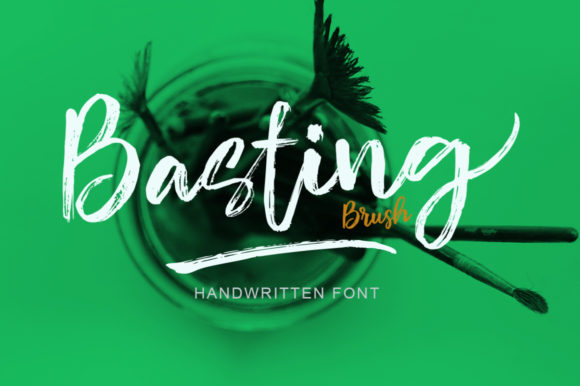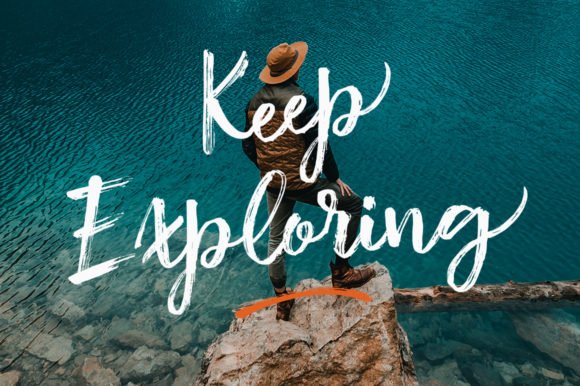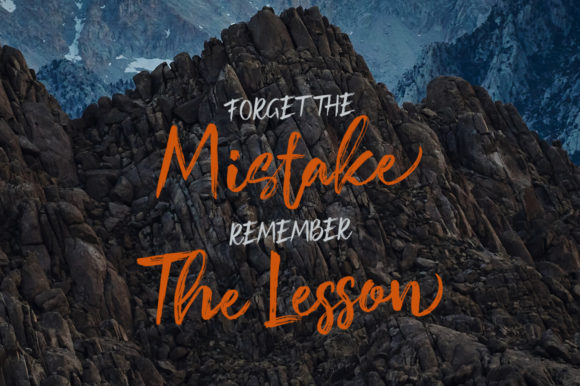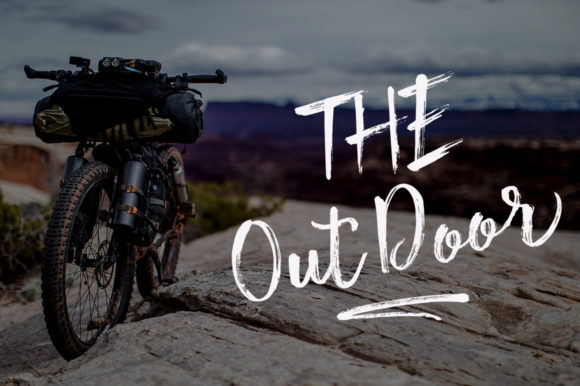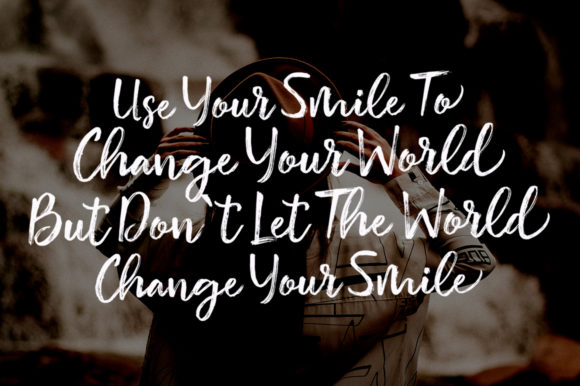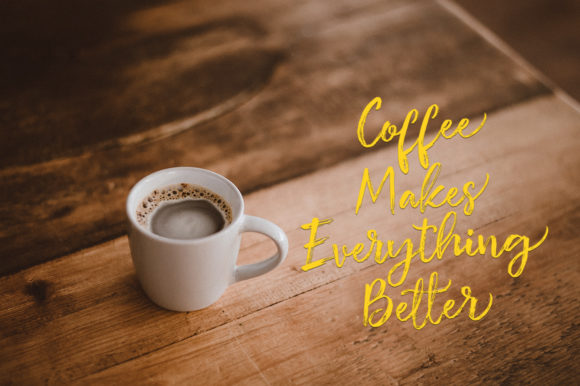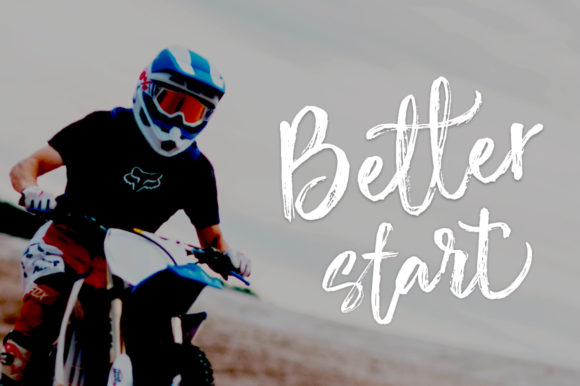
Basting Font
About Basting Font
Basting is a casual handwritten script, designed with a detailed brush stroke texture. It can be added to various purposes such as titles, signature, letterhead, labels, newsletters, posters, logos, invitations, badges, and so much more!